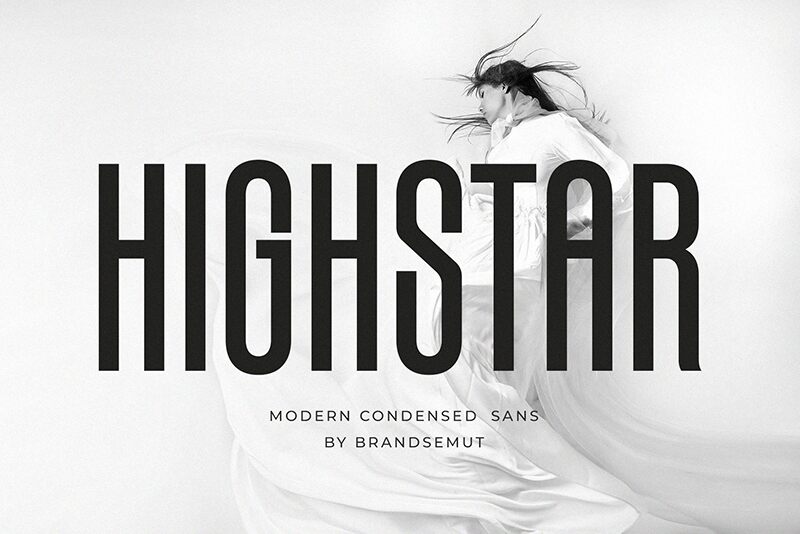
Highstar, designed by BrandSemut, is a striking sans serif font that captivates with its condensed width. The sleek, modern lines of Highstar make it an ideal choice for contemporary design projects where space utilization and readability are key. Its clean and sophisticated appearance ensures it stands out in both digital and print formats.
Use Highstar for branding materials, headlines, or any project requiring an elegant yet assertive typeface. The font's distinctive style adds a touch of professionalism and clarity to any text, making it perfect for editorial design, advertising campaigns, or corporate identity projects.